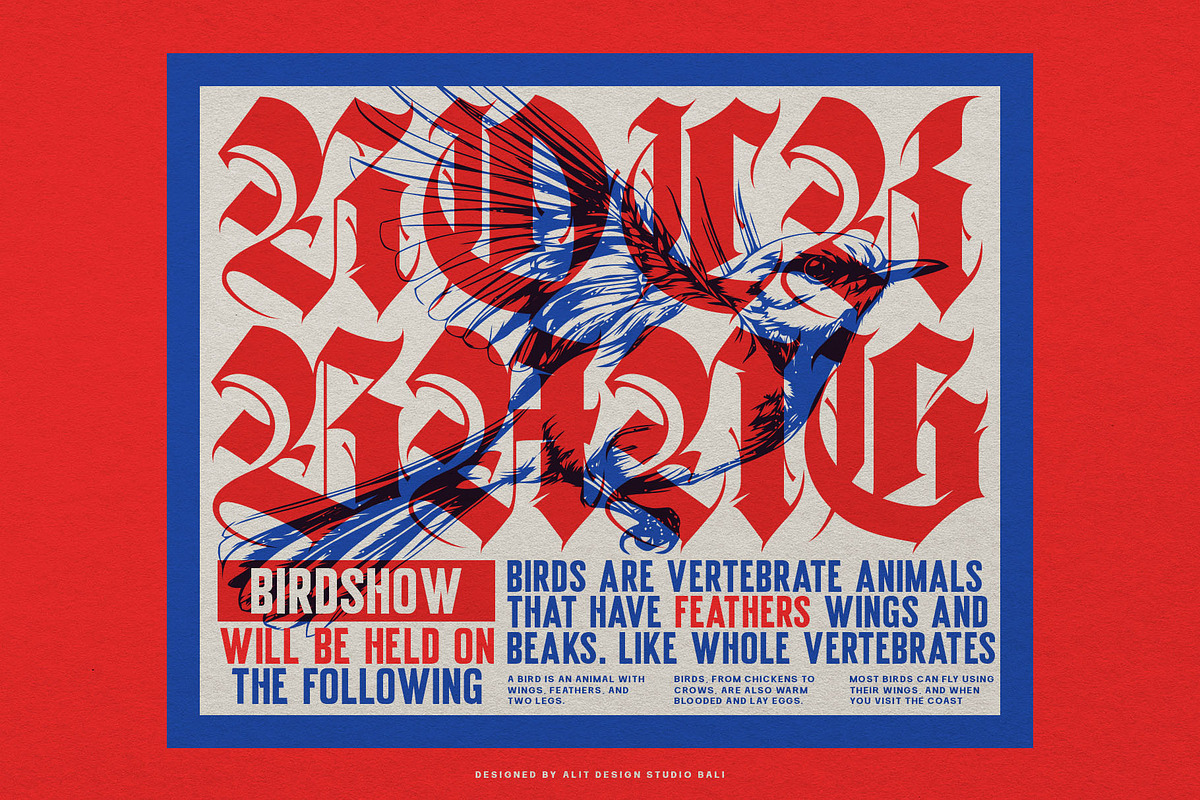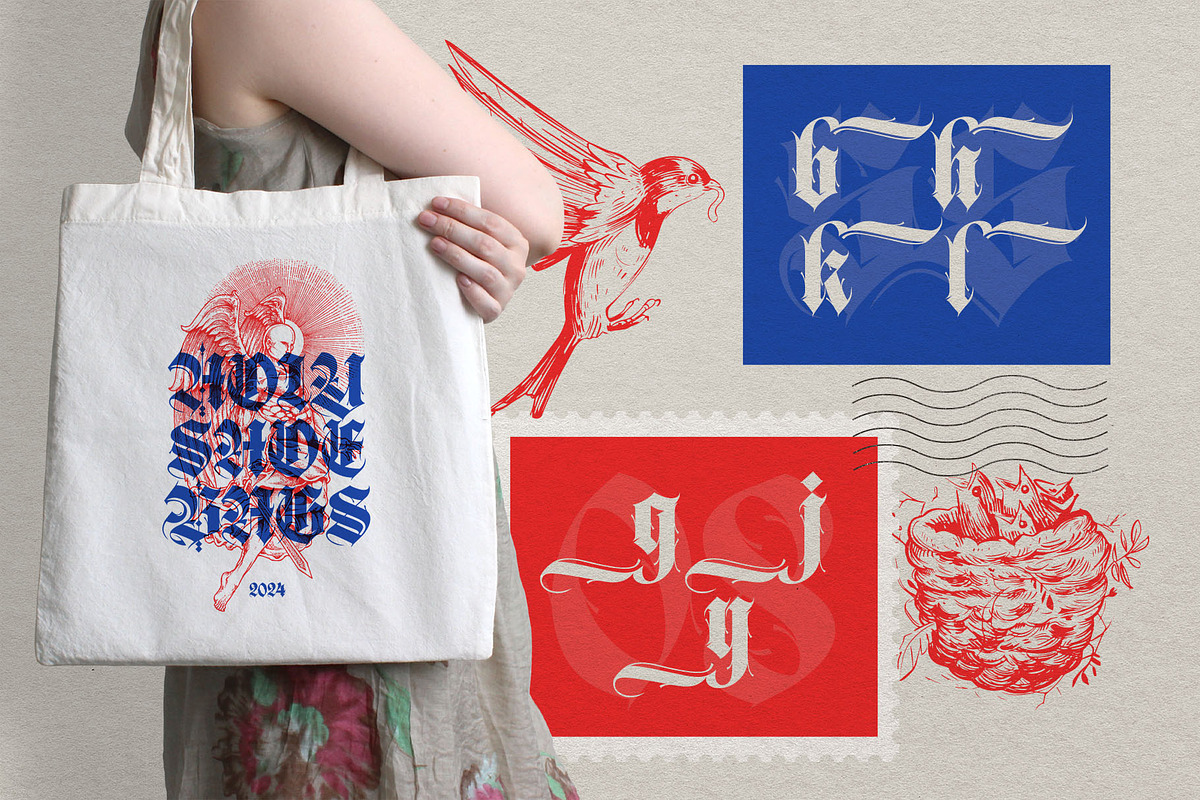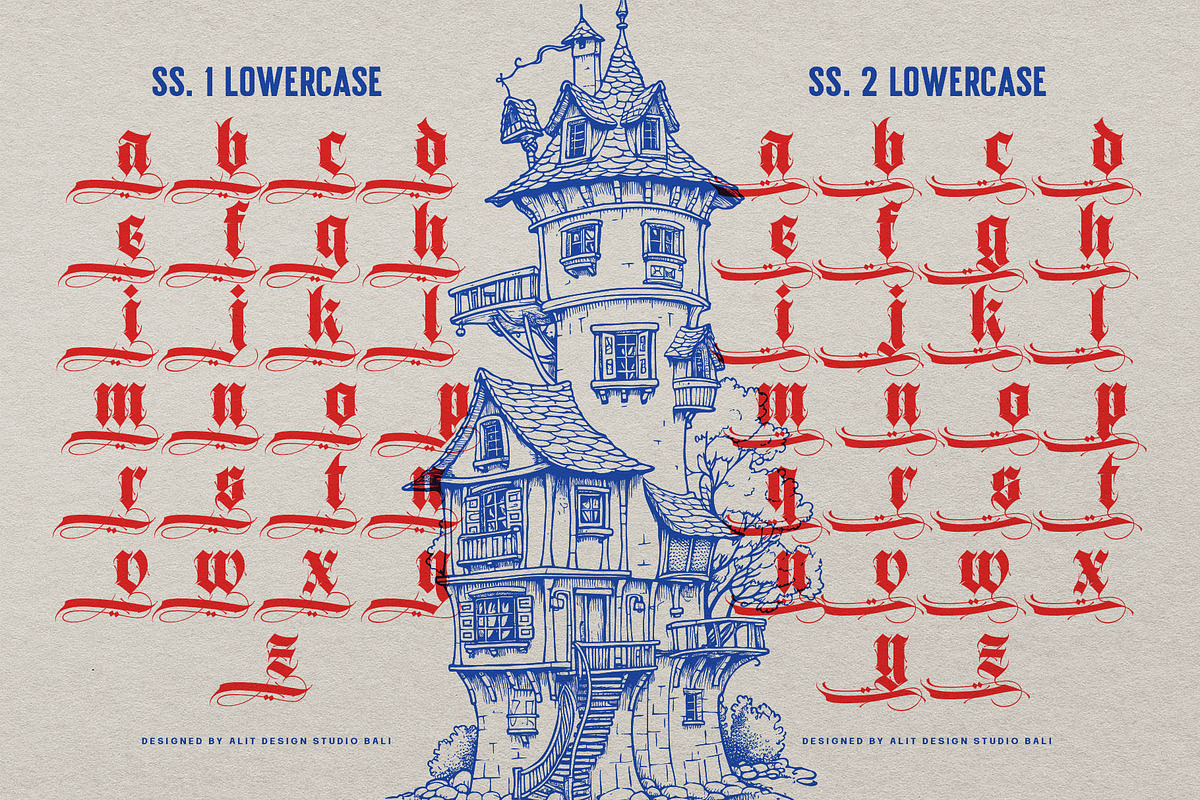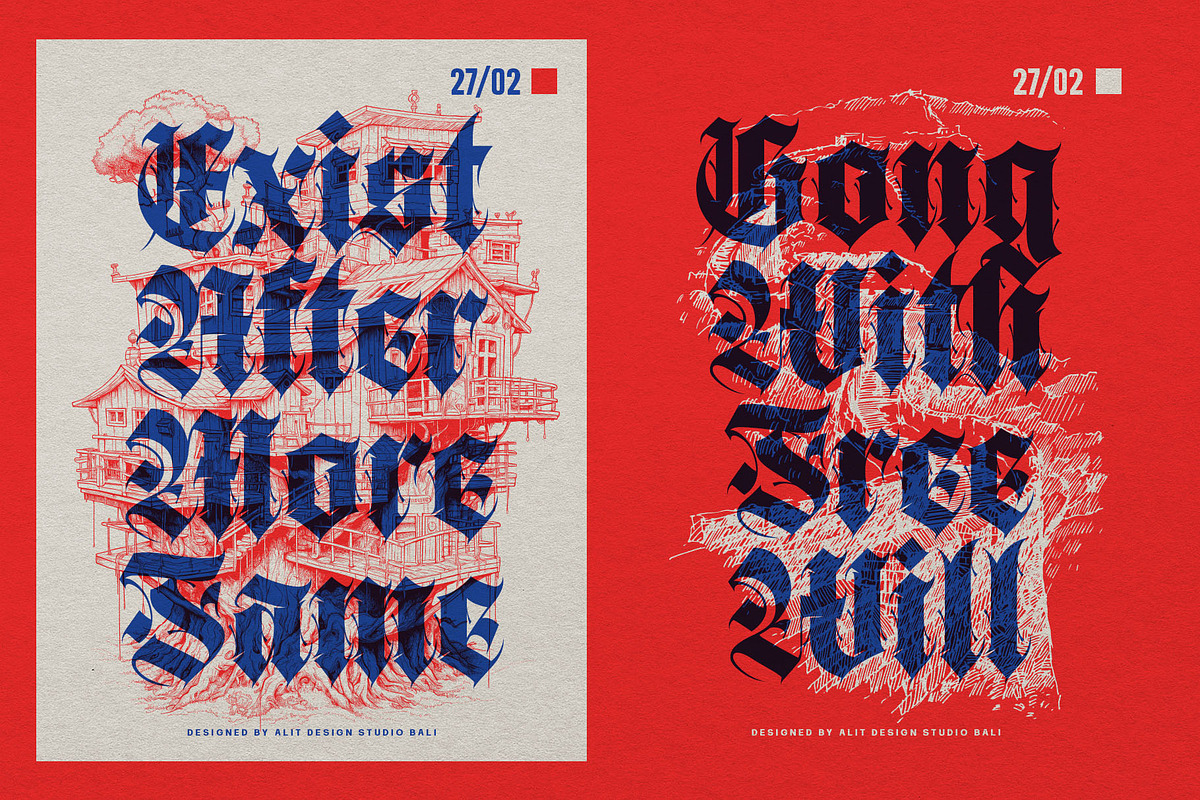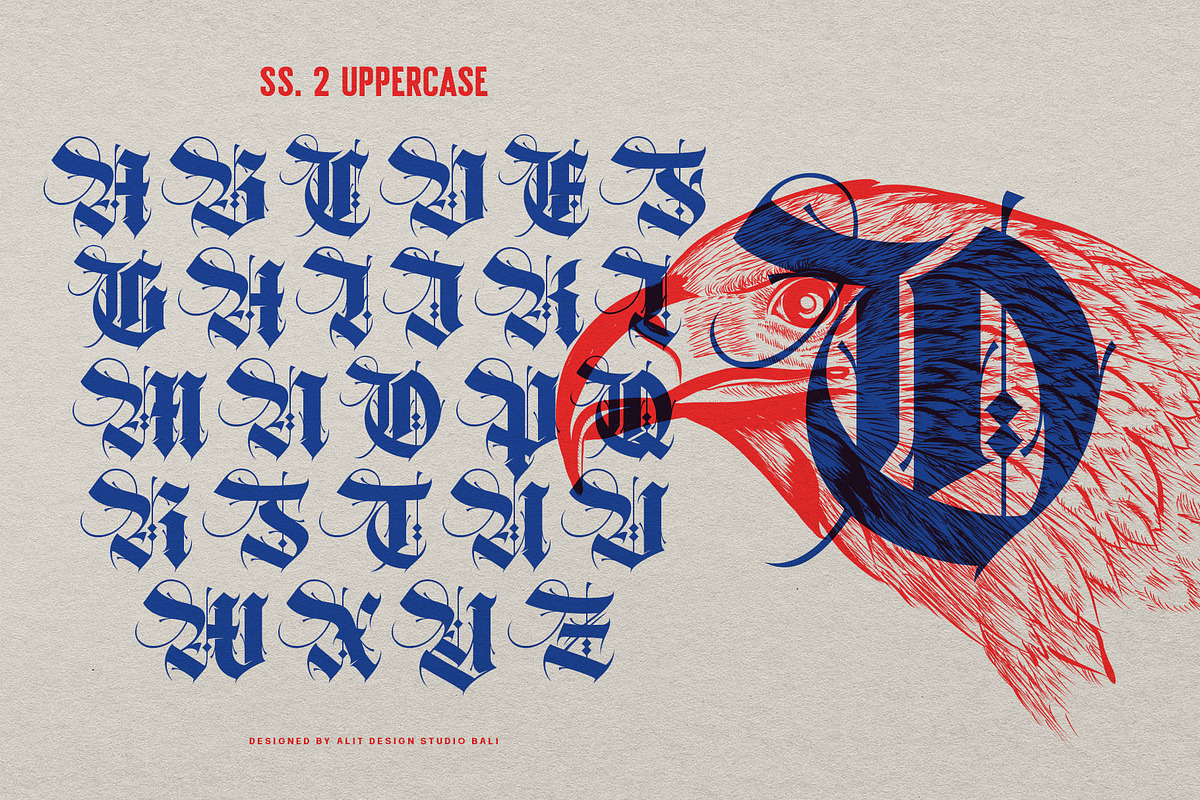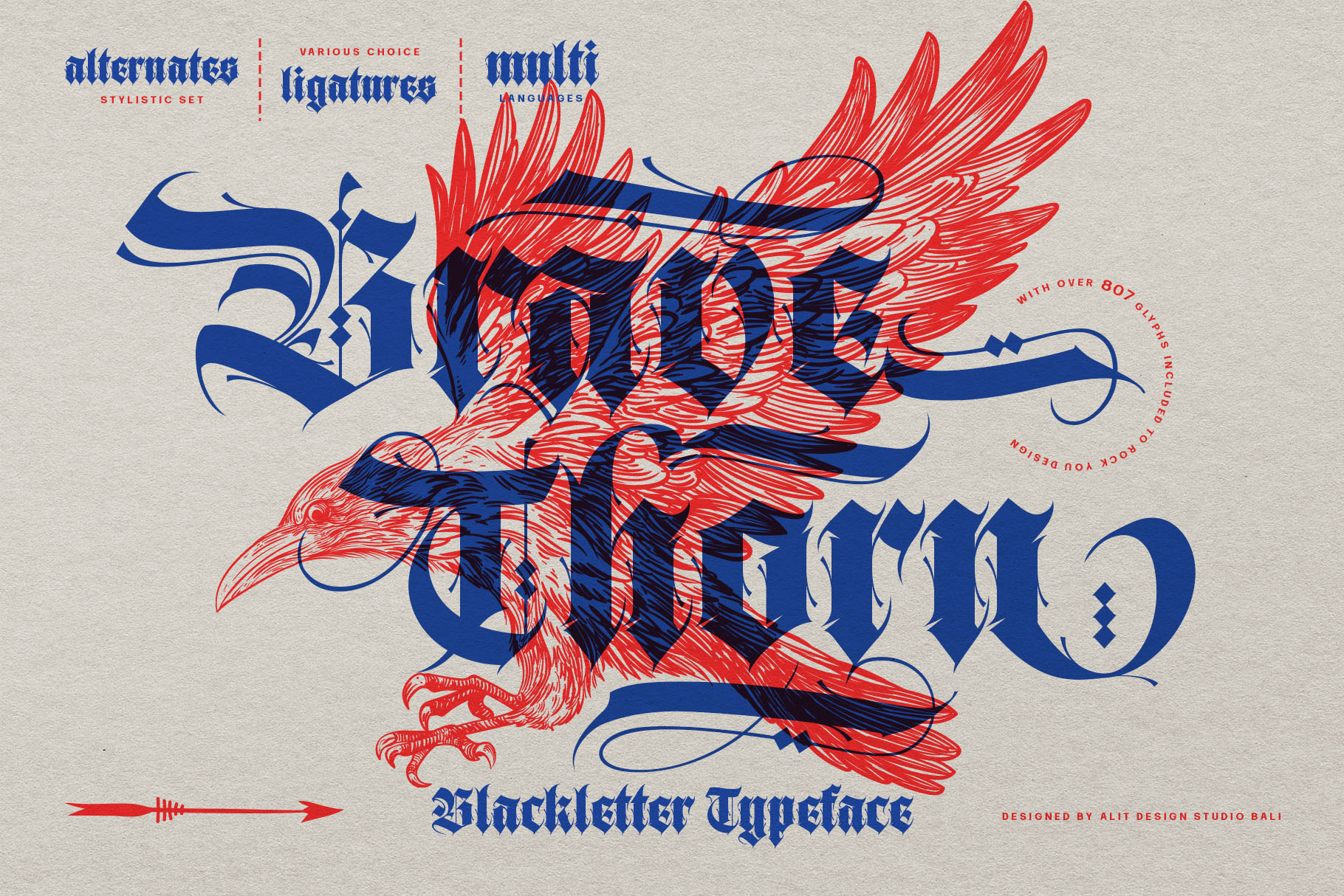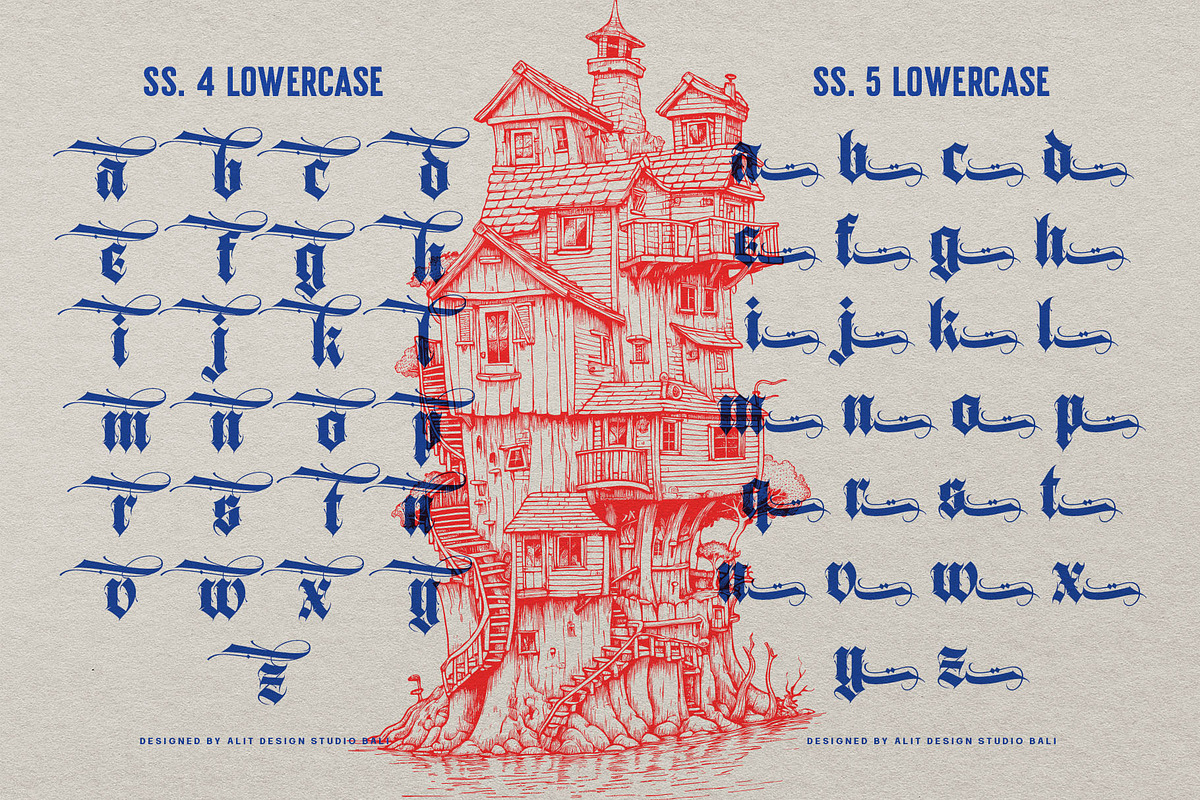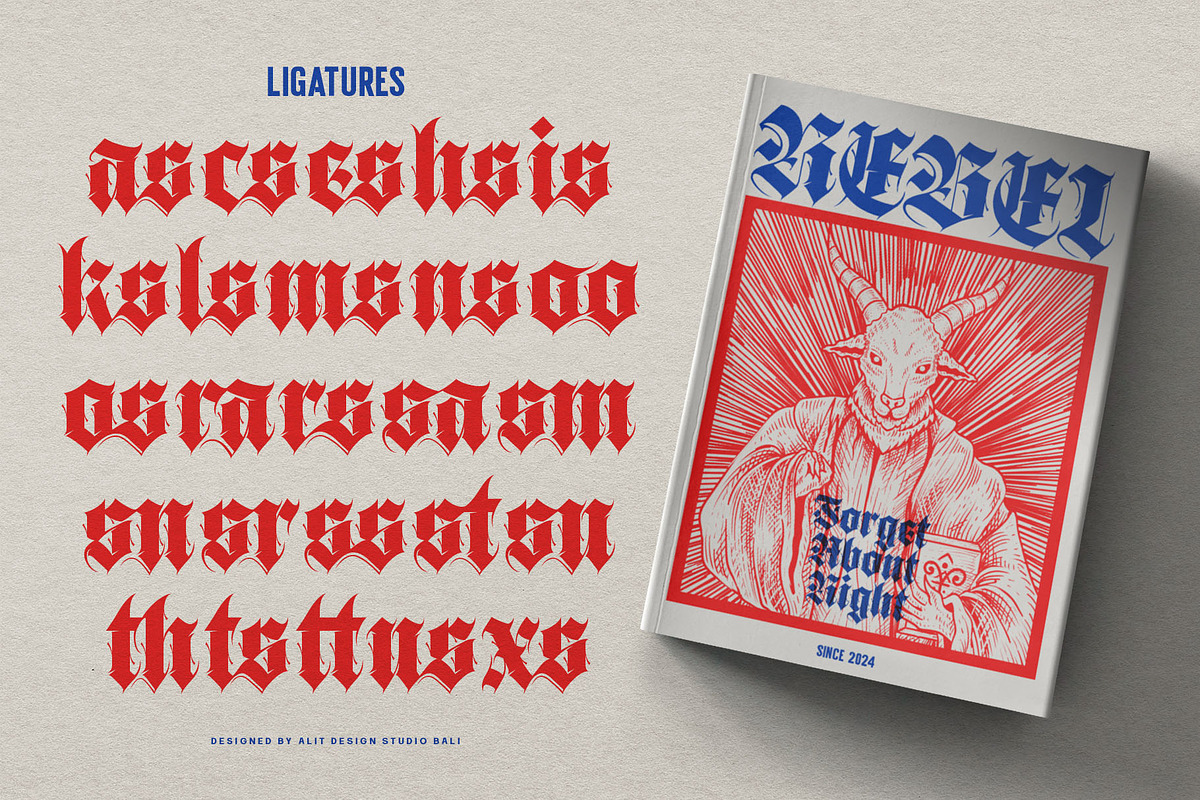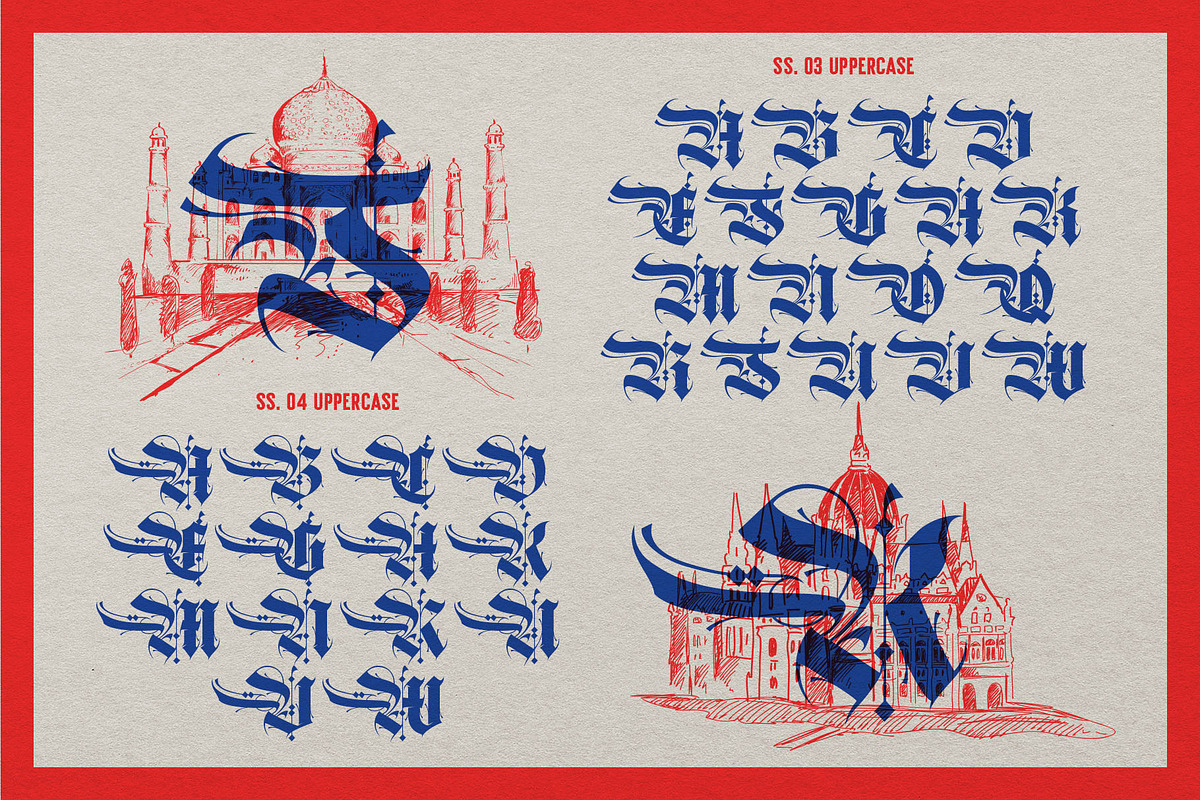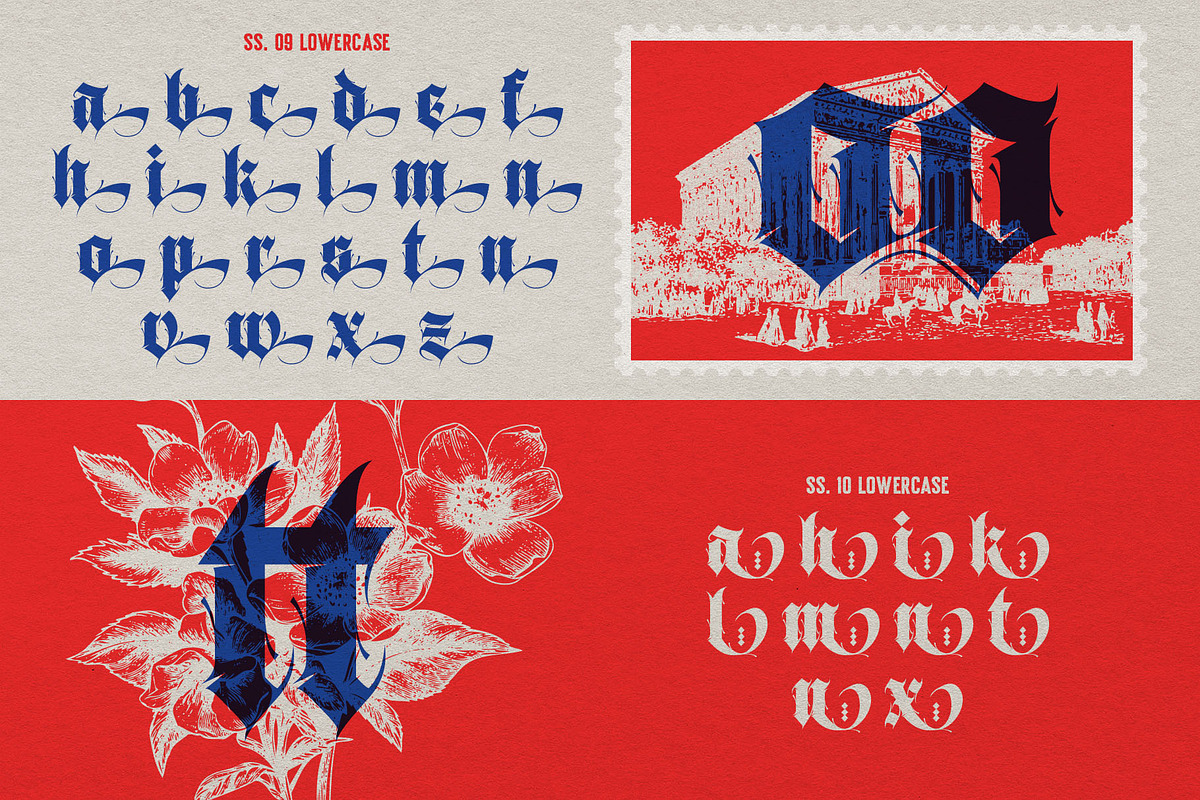
Brave Thorn Blackletter Font
🗡️ Brave Thorn Font 🌹
Introducing Brave Thorn - a formidable Blackletter font that commands attention with its bold strokes and intricate details. This font embodies strength and courage, making it perfect for headlines, logos, and branding that demand to be noticed.
Featuring a robust set of features, Brave Thorn offers swashes, alternatives, and ligatures that add flair and personality to your designs. With support for PUA Unicode, this font allows you to access special characters and symbols easily, expanding your creative possibilities.
But that's not all - Brave Thorn boasts multilingual support, ensuring that your message resonates across diverse audiences and languages. Whether you're crafting a medieval-inspired poster or designing a modern gothic logo, Brave Thorn empowers you to make a bold statement with every letter.
Dare to be different with Brave Thorn - where strength meets style in every stroke.